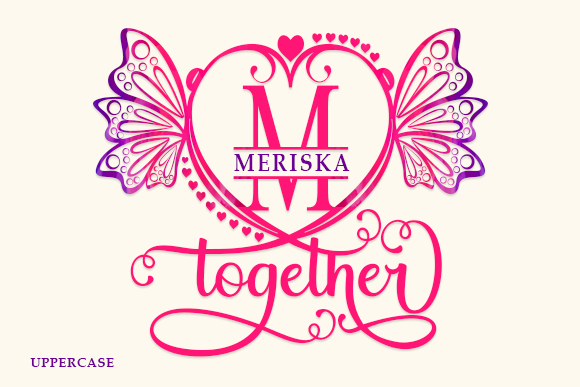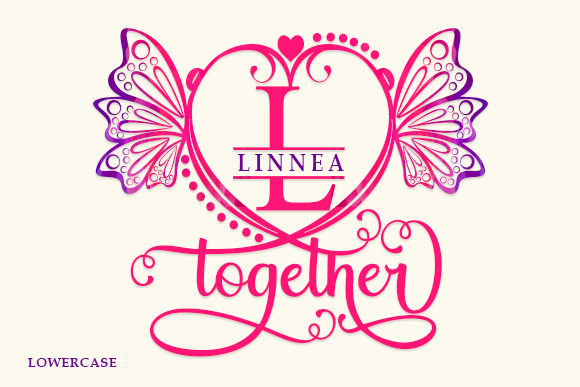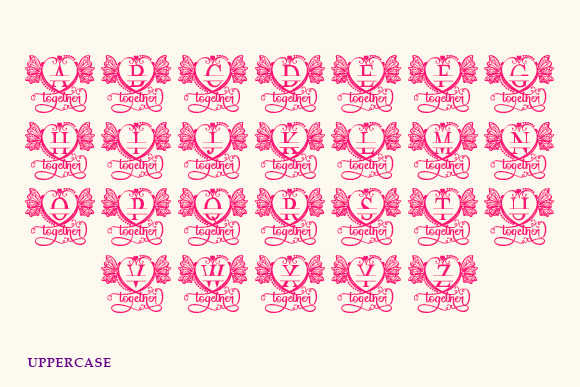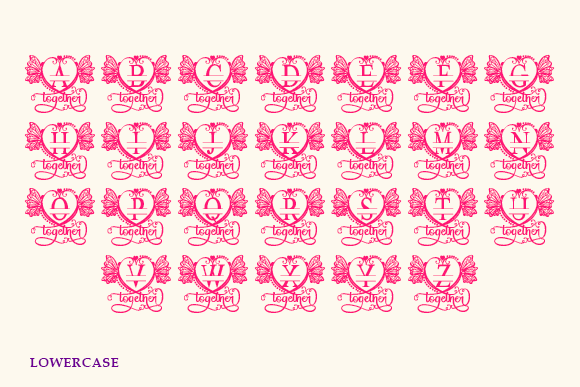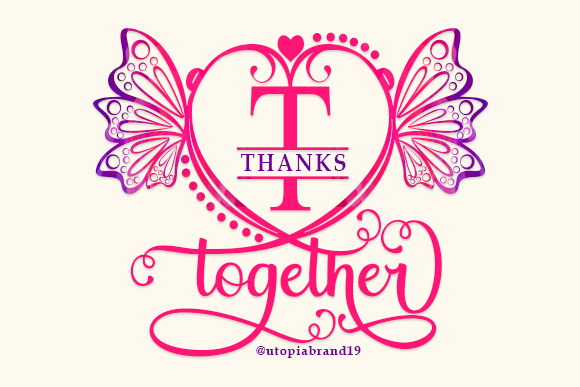
Belle Monogram Font: Elevate Your Designs with Elegance
Are you a designer or crafter looking for a font that exudes elegance and sophistication? Look no further than the Belle Monogram Font. This beautiful decorative font is perfect for creating stunning wedding invitations, stationary art, social media posts, and greeting cards that will leave a lasting impression.
What is Belle Monogram Font?
Belle Monogram Font is an elegant decorative font that features lovely ornaments, giving it an authentic feel that’s sure to captivate your audience. Its unique design makes it perfect for a variety of creative projects, from wedding invitations to social media graphics.
Key Features of Belle Monogram Font
- Elegant Design: Belle Monogram Font boasts an elegant design that’s perfect for creating sophisticated and luxurious designs.
- Lovely Ornaments: The font features beautiful ornaments that add a touch of whimsy and romance to your designs.
- Authentic Feel: The font’s authentic feel makes it perfect for creating designs that are both vintage and timeless.
- Versatile: Belle Monogram Font can be used for a variety of creative projects, from wedding invitations to social media graphics.
Uses of Belle Monogram Font
Belle Monogram Font is a versatile font that can be used for a variety of creative projects. Here are some ideas to get you started:
- Wedding Invitations: Create stunning wedding invitations that will set the tone for the big day.
- Stationary Art: Design beautiful stationary art that’s perfect for journaling, scrapbooking, and more.
- Social Media Posts: Create eye-catching social media posts that will grab the attention of your followers.
- Greeting Cards: Design cute and elegant greeting cards for special occasions.
Why Choose Belle Monogram Font?
There are many reasons why you should choose Belle Monogram Font for your next creative project. Here are a few:
- Unique Design: Belle Monogram Font has a unique design that’s sure to make your designs stand out.
- Elegant and Sophisticated: The font exudes elegance and sophistication, making it perfect for creating luxurious designs.
Tips for Using Belle Monogram Font
Here are a few tips for using Belle Monogram Font:
- Use it for Headings: Belle Monogram Font is perfect for headings and titles.
- Experiment with Colors: Try experimenting with different colors to find the perfect combination for your design.
- Pair it with Other Fonts: Pair Belle Monogram Font with other fonts to create a unique and interesting design.
- Use it for Branding: Use Belle Monogram Font for branding purposes, such as creating a logo or business cards.